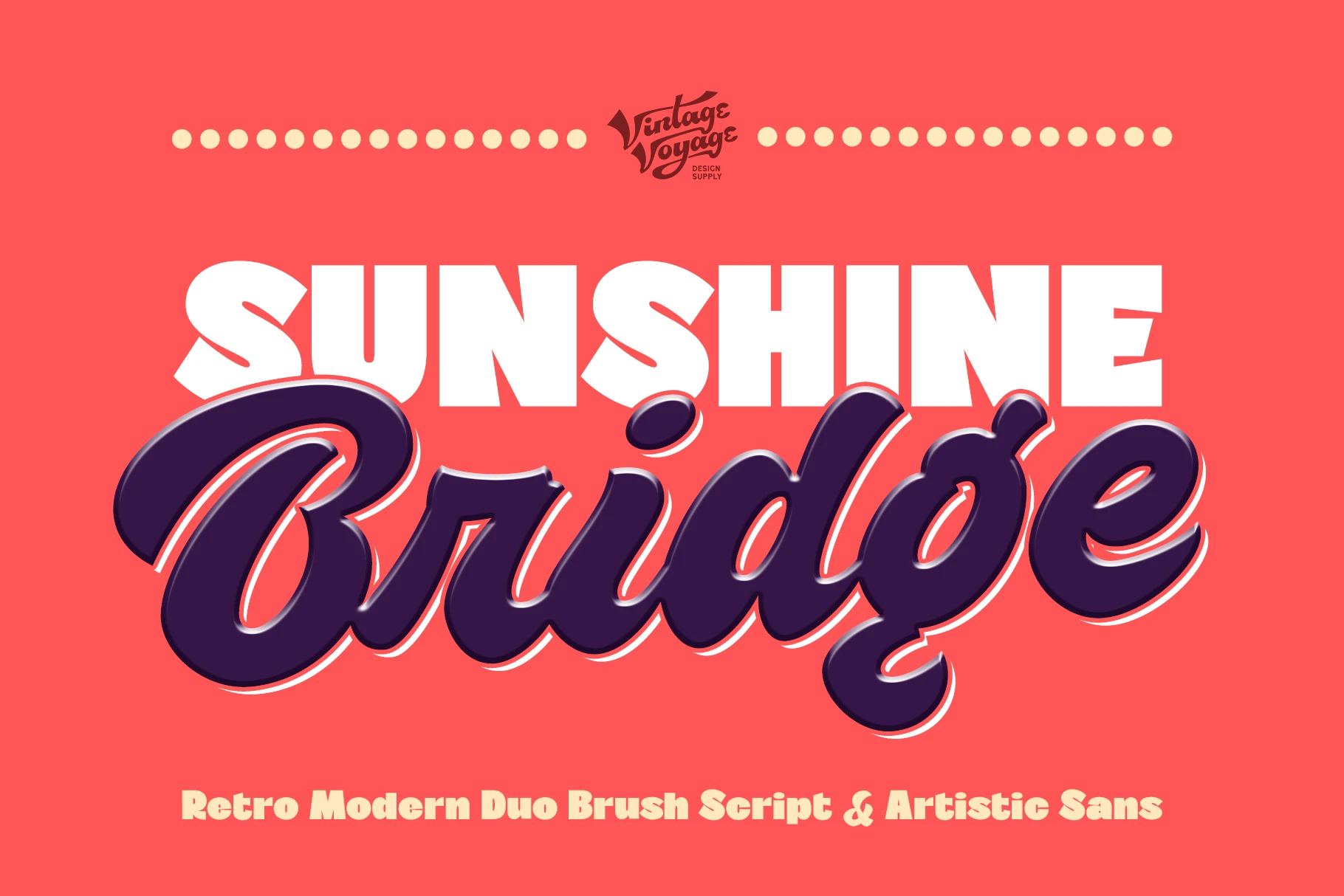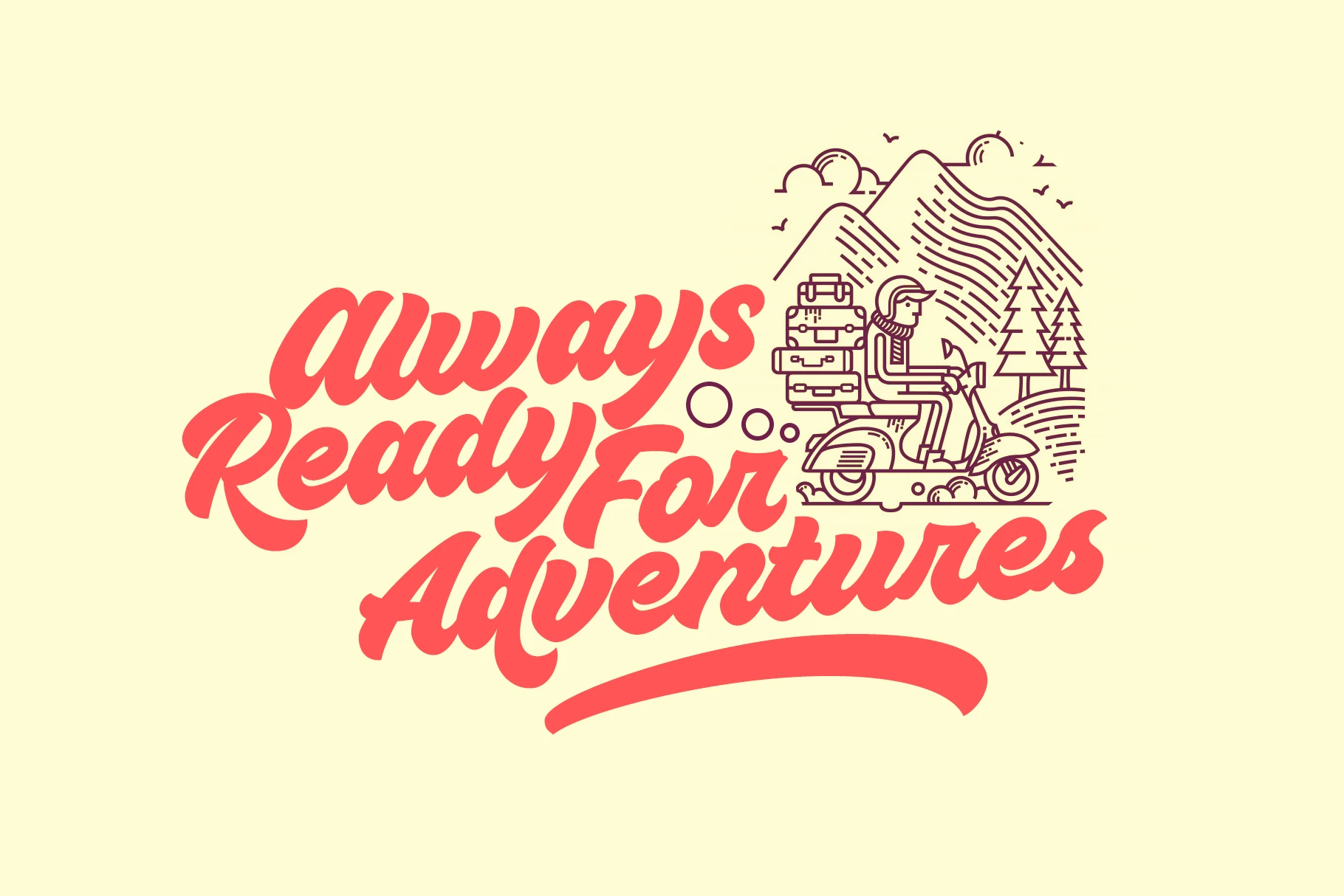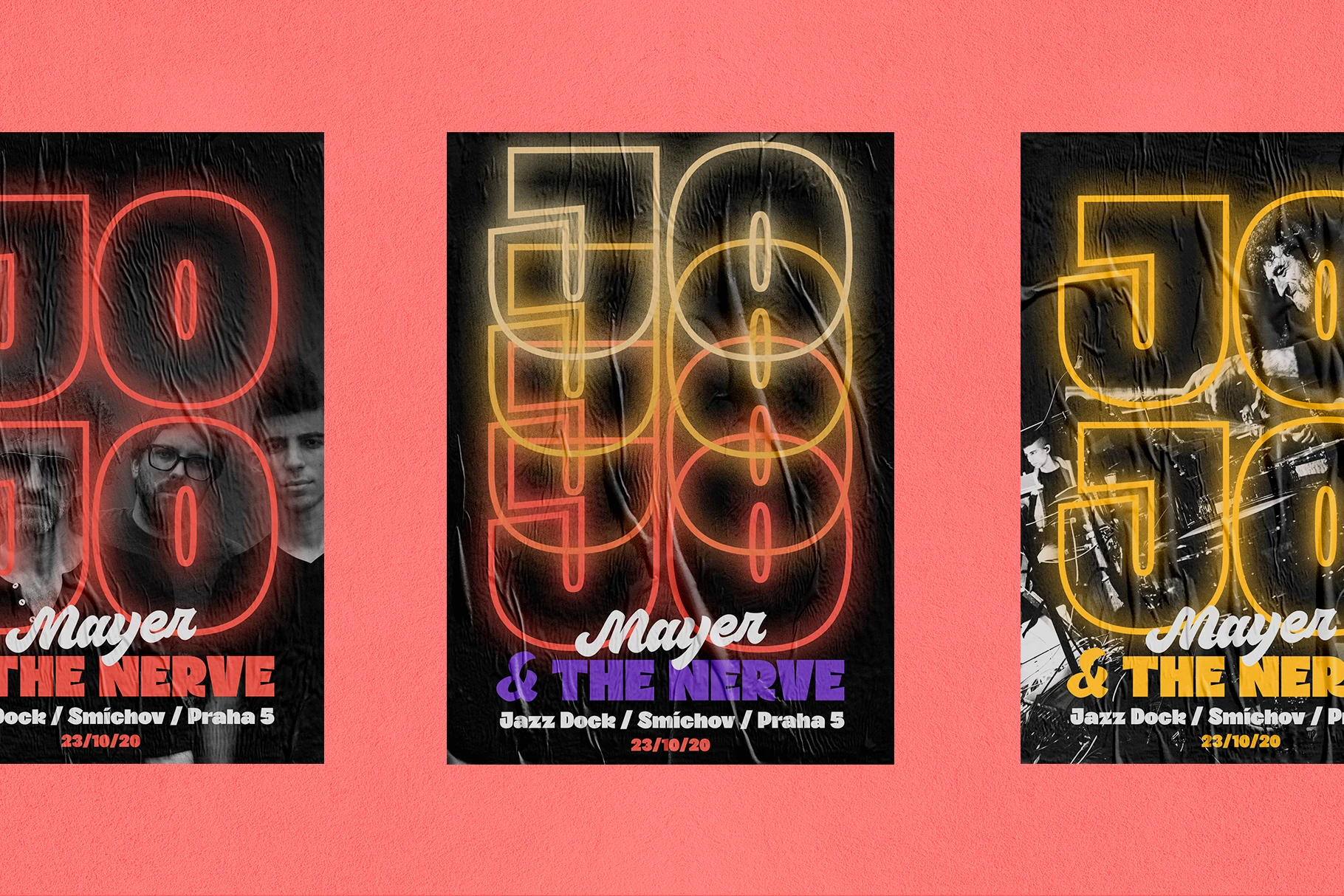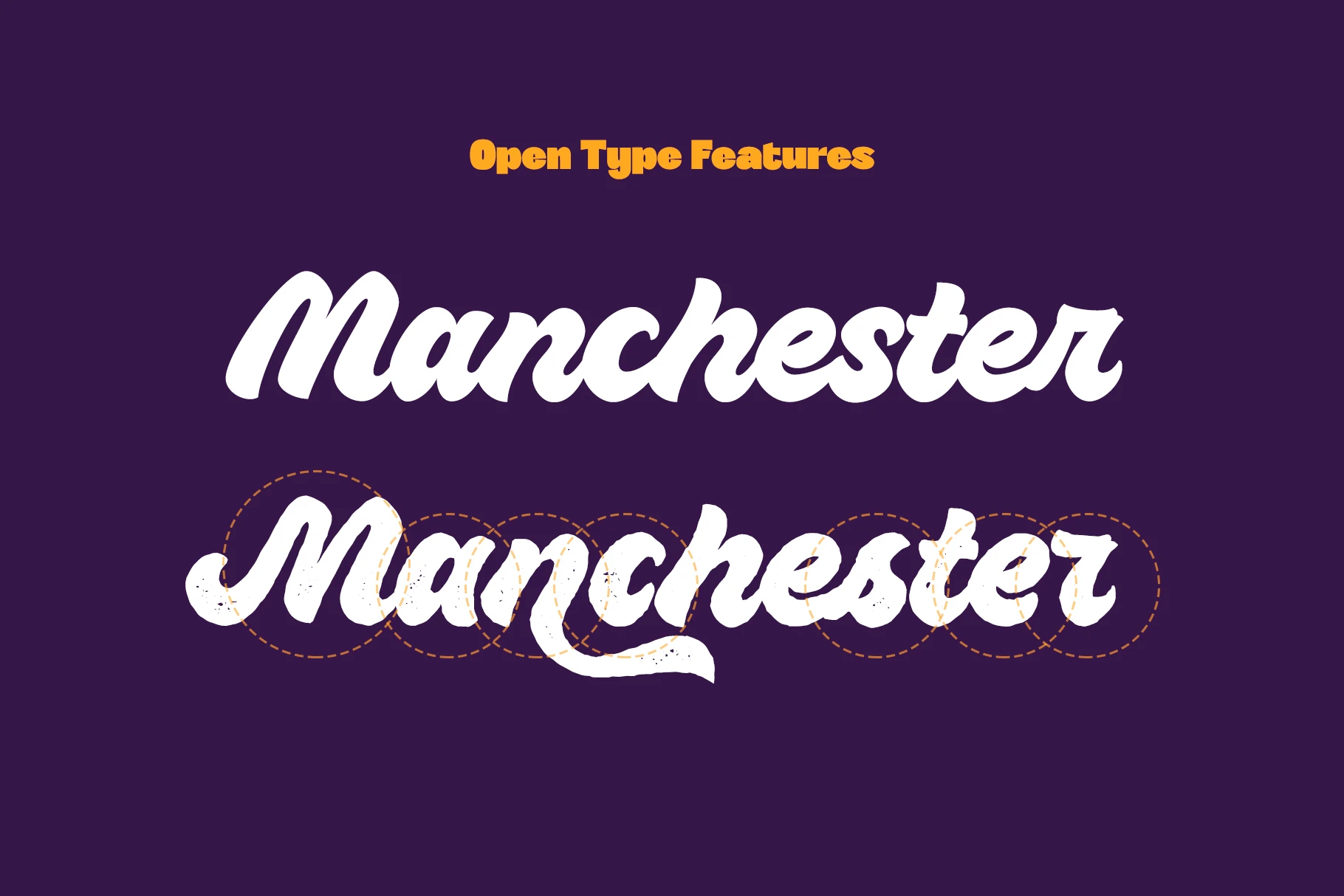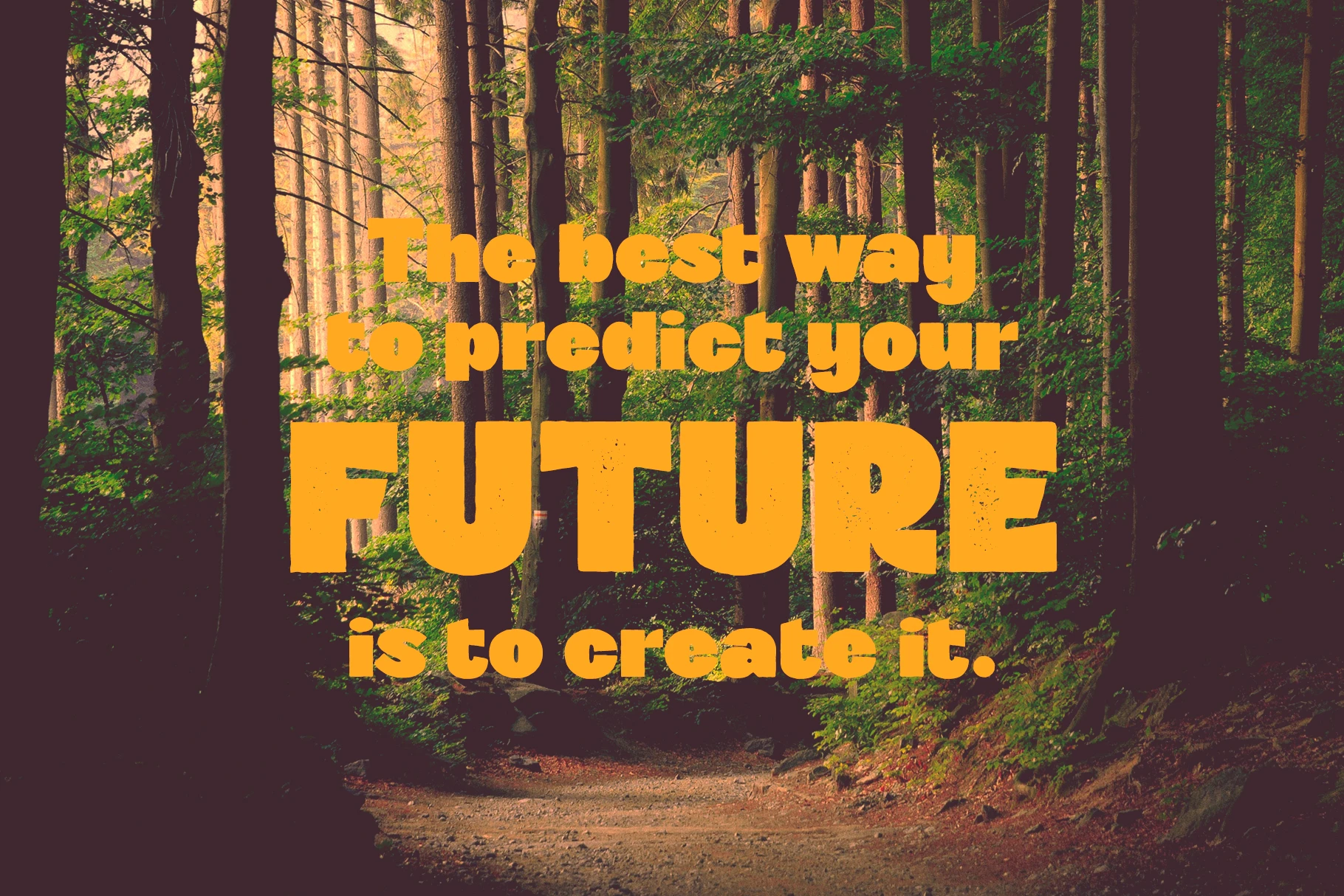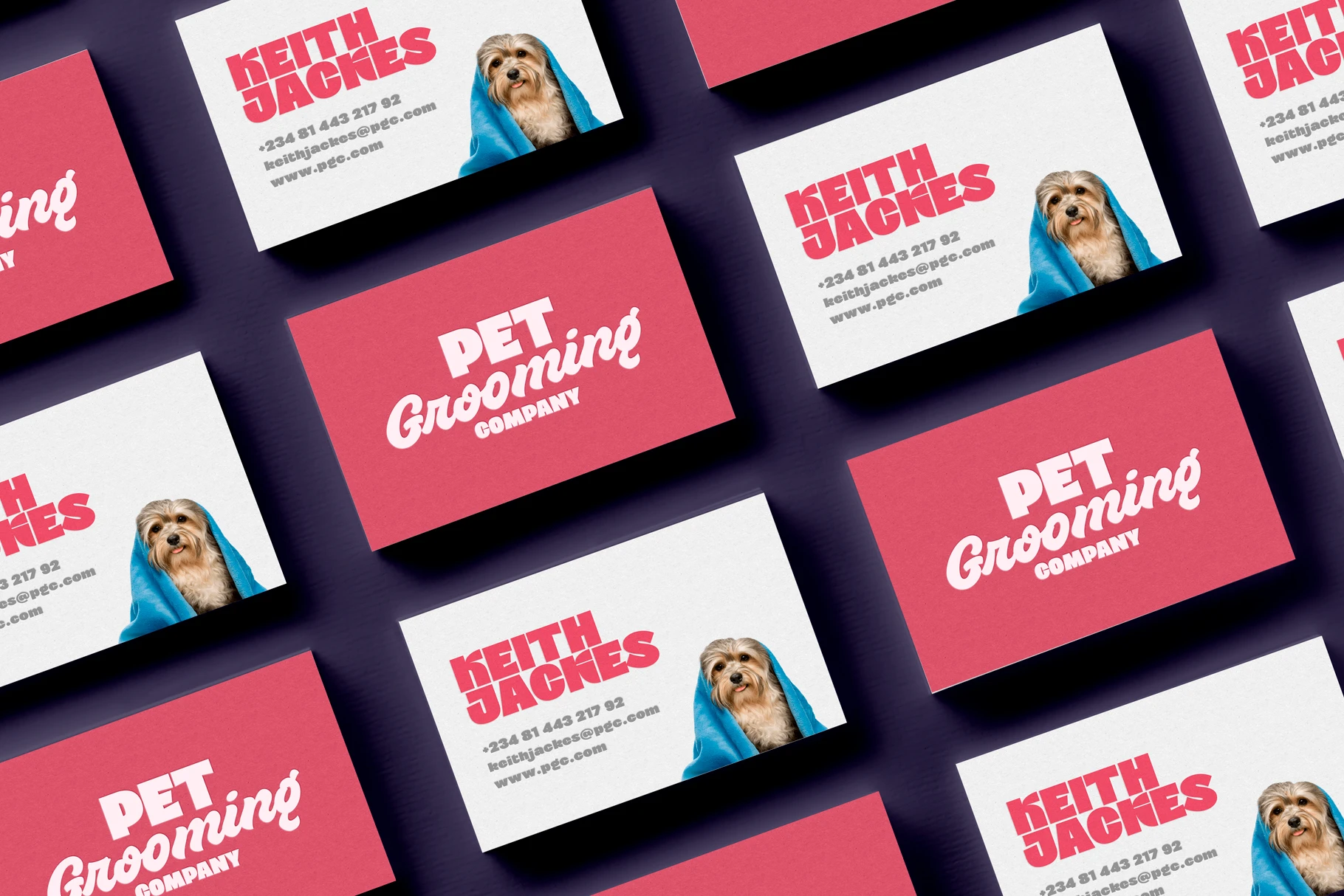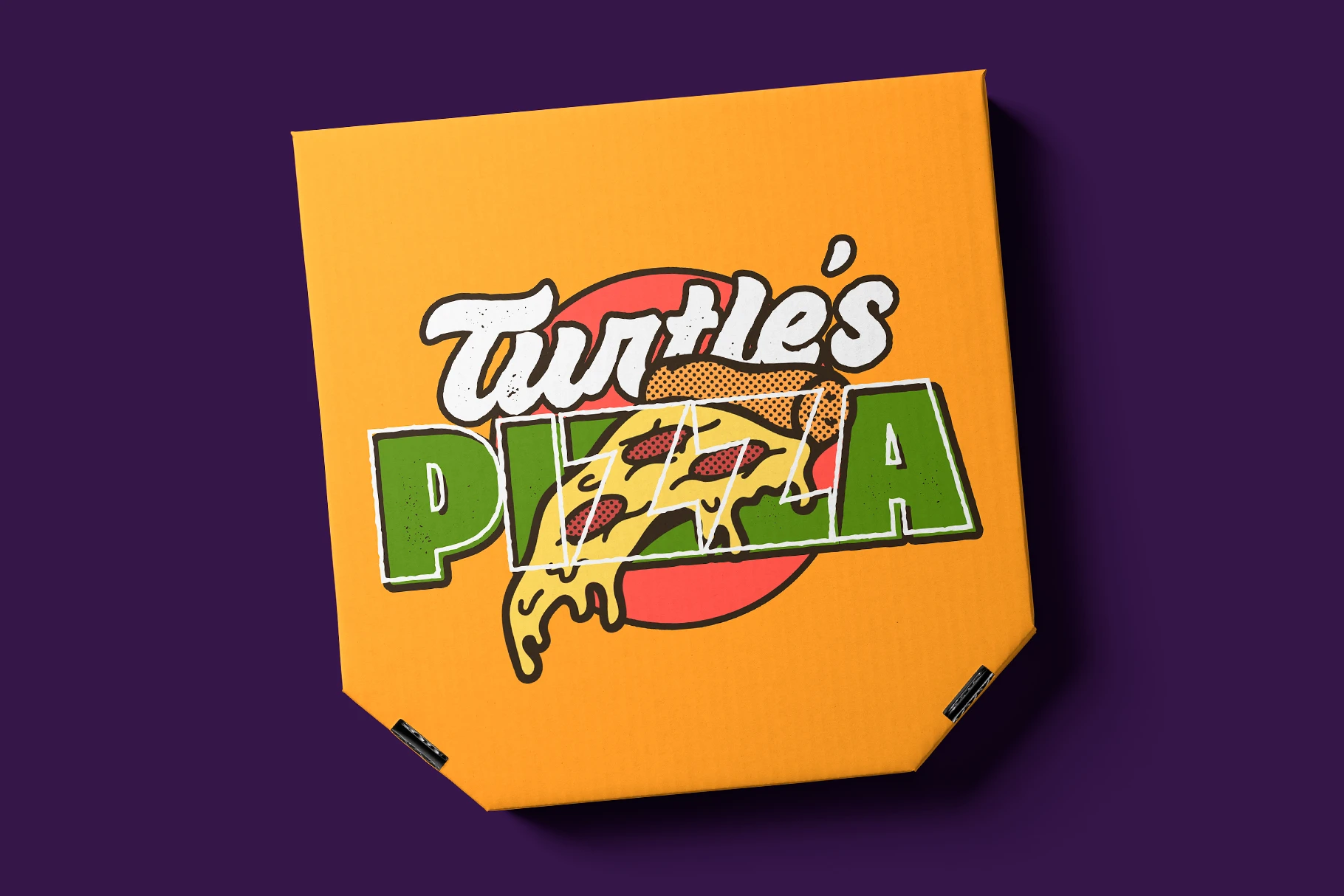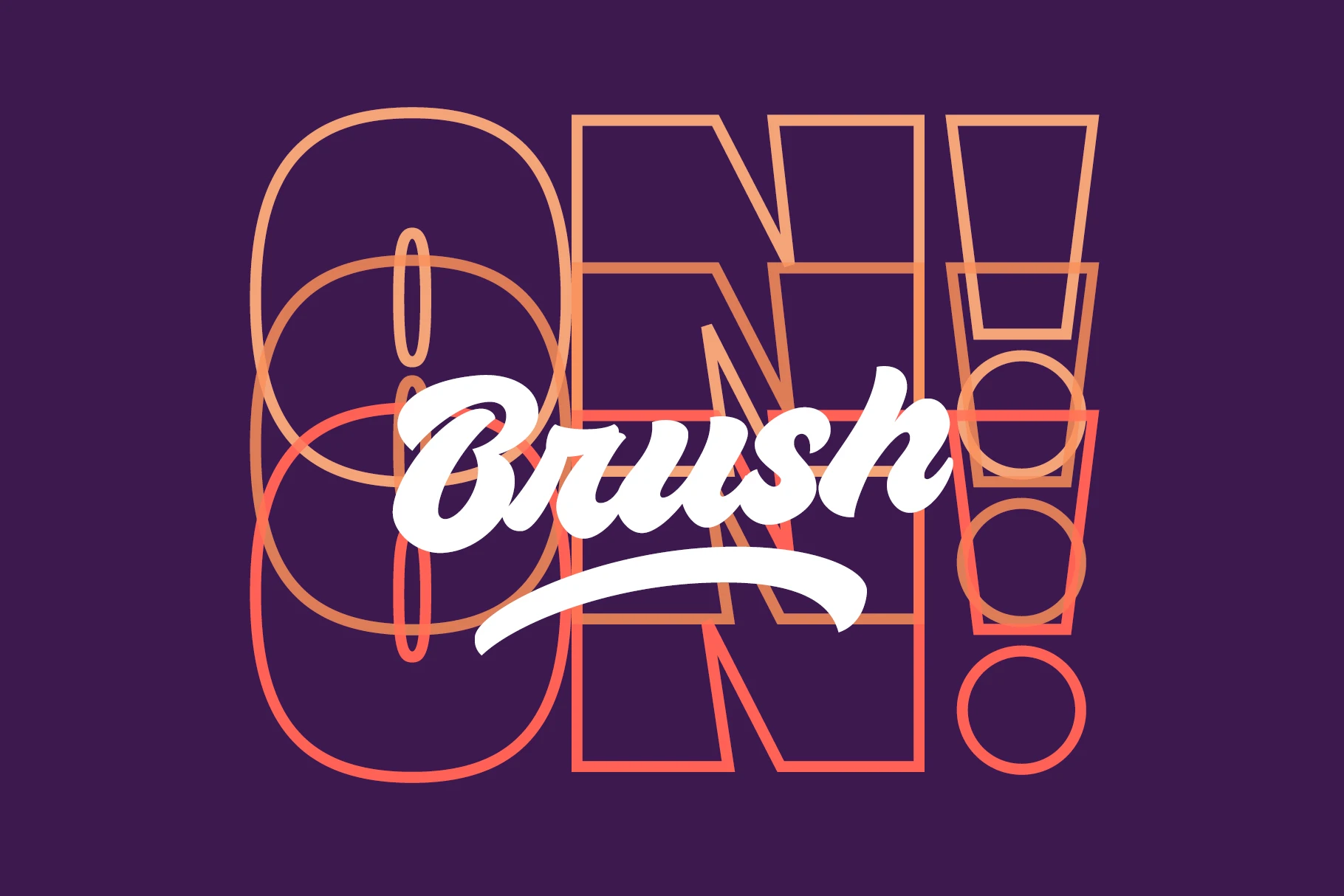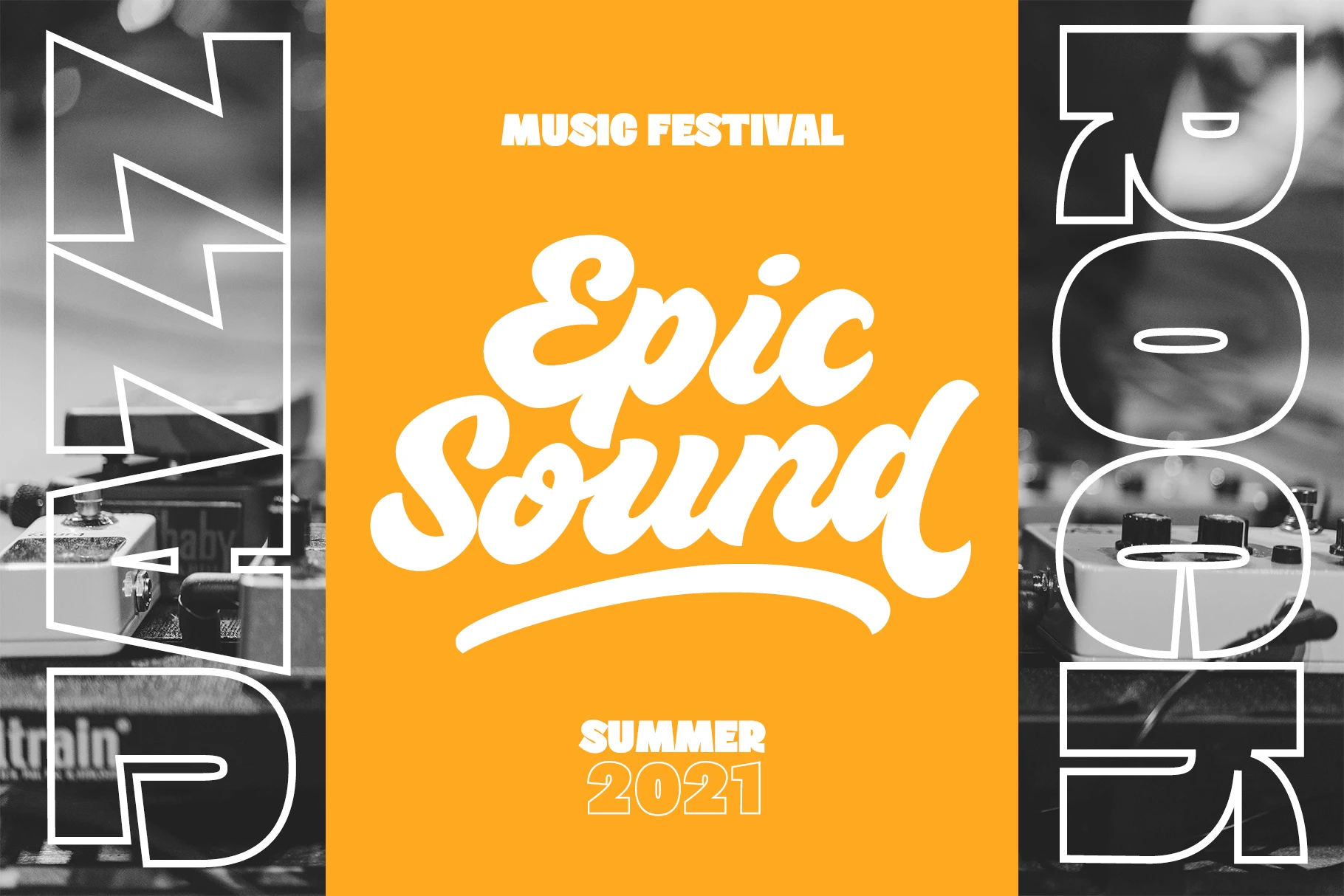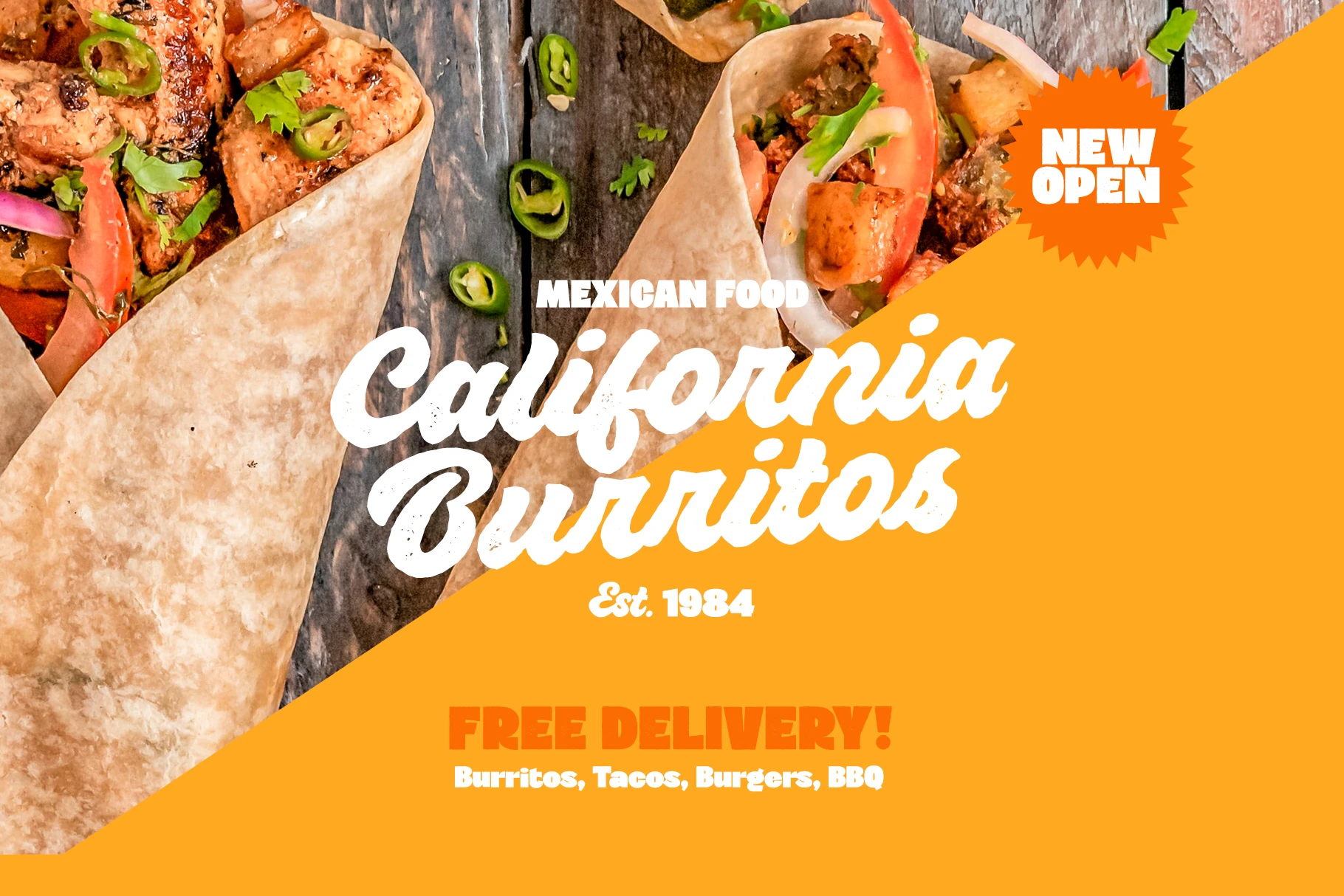
Sunshine Bridge Font Family
Sunshine Bridge is a retro-modern font duo combining a bold brush script with a strong, artistic sans-serif. Designed to complement each other, the pair works seamlessly whether the script leads or supports. The look is modern with a vintage twist, making it versatile for both classic-inspired projects like brewery logos and beer labels, or sleek contemporary uses like magazine headlines and stylish prints.
The script includes a variety of OpenType features such as swashes and alternates, adding a hand-crafted, expressive feel to your designs. Ideal for branding, packaging, editorial, and signage.
• Common Ligatures
• Discretionary Ligatures
• Stylistic Sets
• Swashes